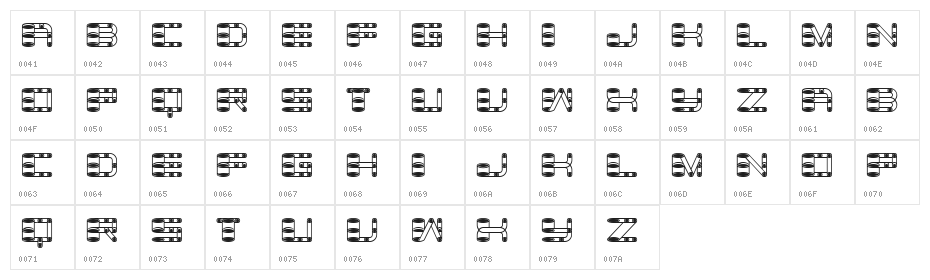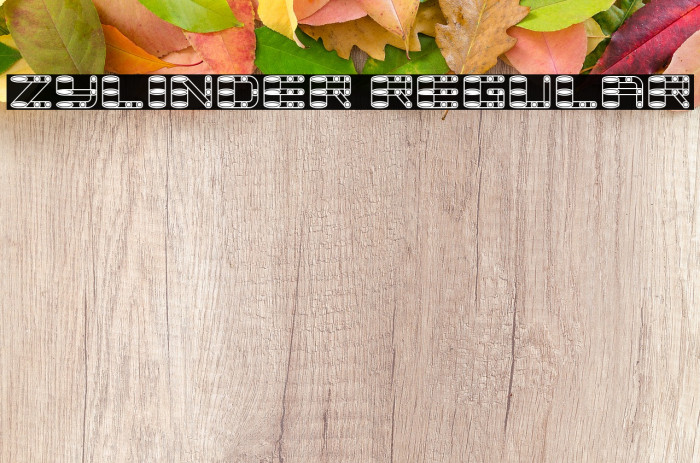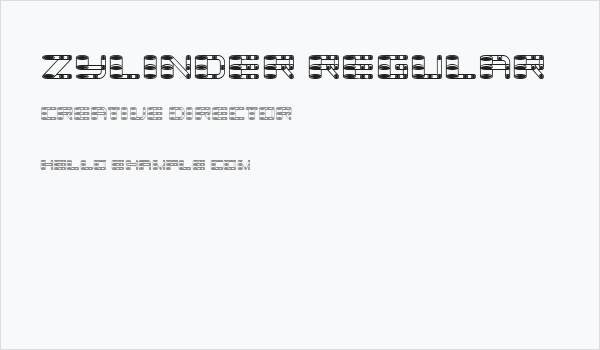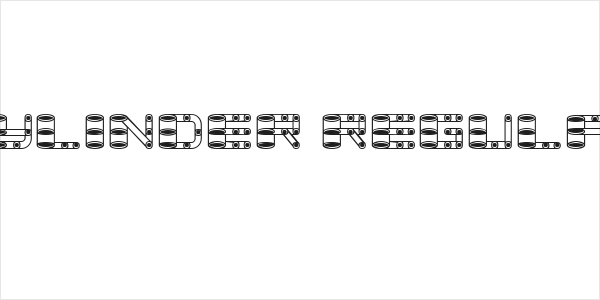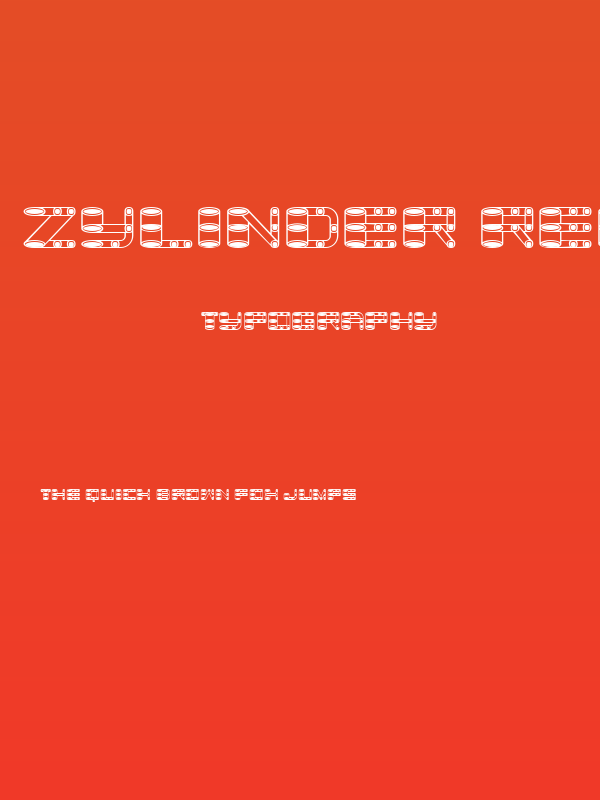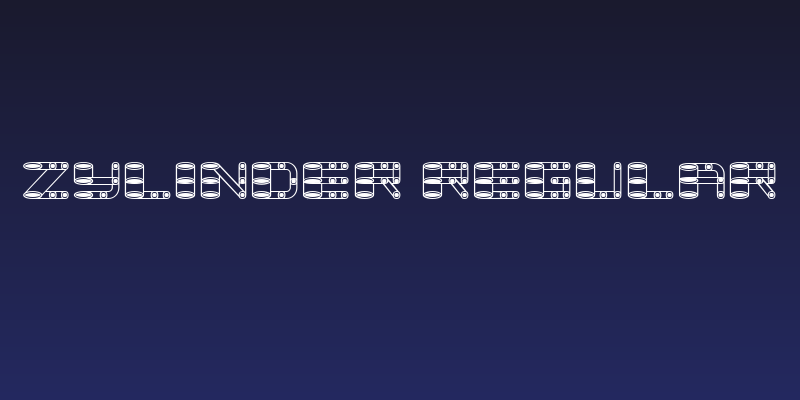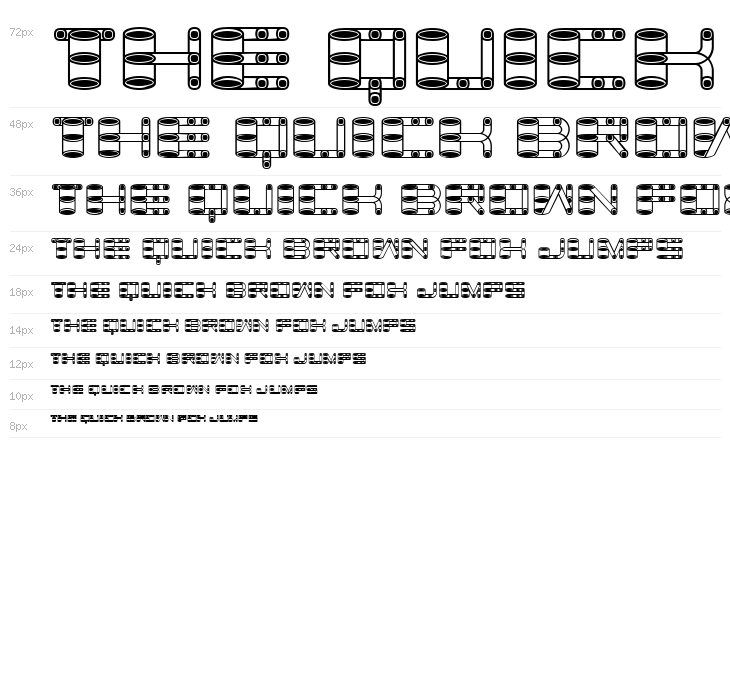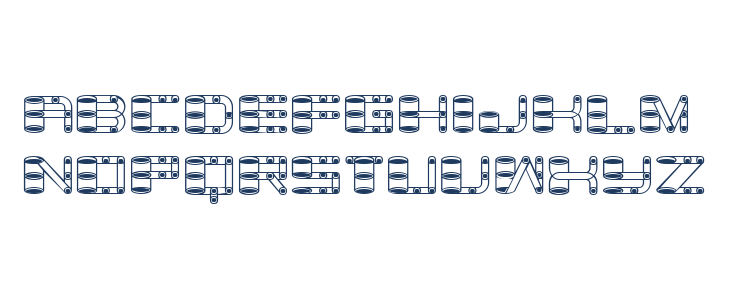
Zylinder Regular Font
Zylinder Regular Description
This font features a unique and intricate design, characterized by a tubular, cylindrical appearance with a mechanical or industrial aesthetic. Each letter is composed of segments that resemble pipes or tubes, giving it a three-dimensional look. The font maintains a consistent structure across all characters, with a bold outline that enhances its visibility. The design is both decorative and functional, making it suitable for projects that require a distinctive and eye-catching typeface. Its geometric precision and uniformity lend it a modern and futuristic feel, while the detailed construction adds a layer of complexity and depth.
Overall StyleModern, Industrial
Proposed ProjectsIdeal for branding, posters, and any design requiring a futuristic or industrial theme.